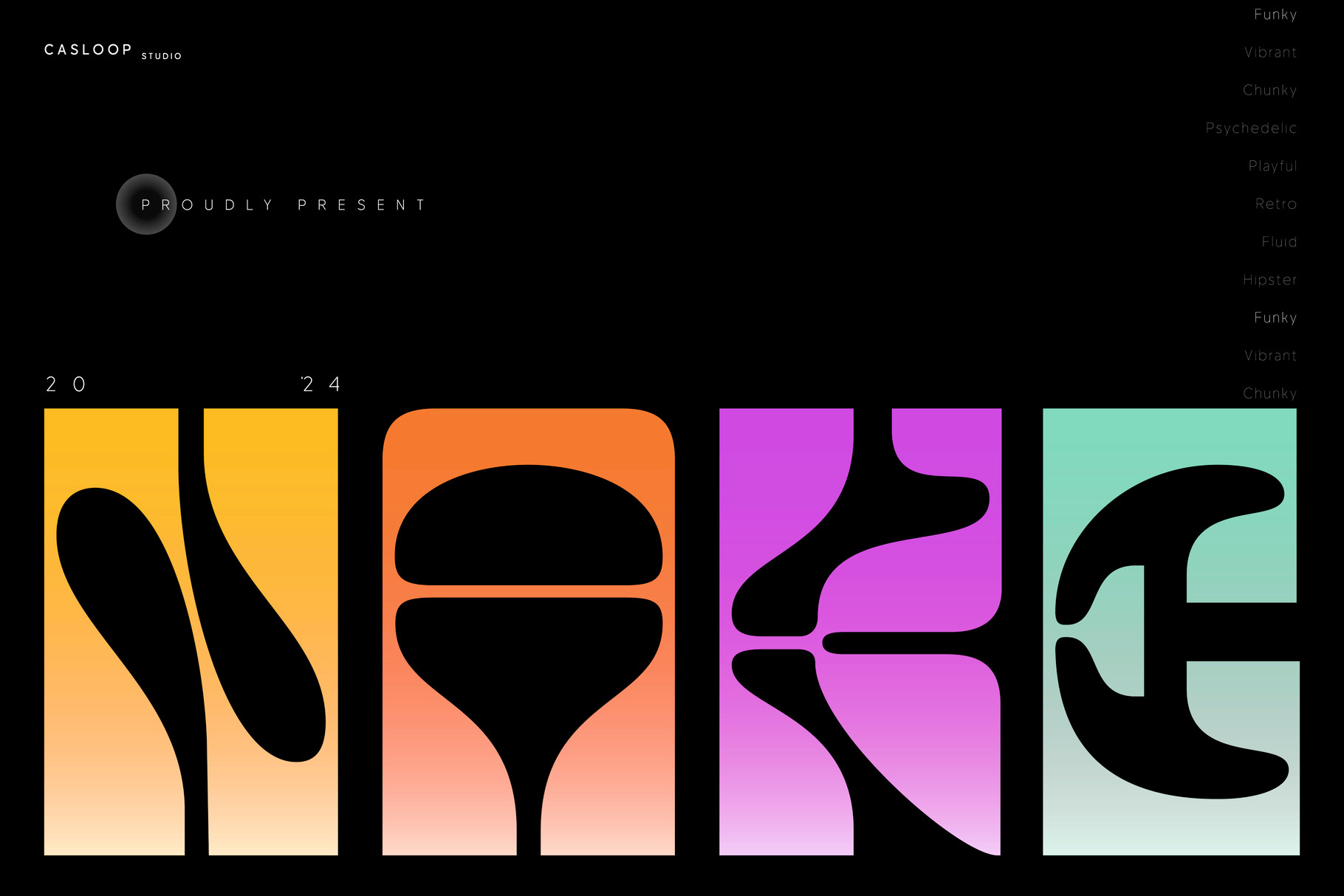
Nake - Funky Quirky Fluid Typeface
Introducing Nake, a font that embodies the groove and funk of yesteryears while resonating with the dynamic nimbus and expressive vibe of today's digital media landscape. Its psychedelic Art Nouveau design injects a playful retro charm into any project, be it website design, packaging, or branding for a mystical product.
Characteristic of the font is its hipster appeal, evoking the funky spirit of the gold 70s and 80s while embracing contemporary trends. With a single variant weight, Nake stands out as a unique and impactful choice for those seeking to make a statement in their design endeavors.
Superiority shines through Nake's ability to capture attention and evoke a sense of nostalgia, making it ideal for festivals, art installations, and digital media visuals. Its chunky yet quirky style adds an element of fun to any project, ensuring it remains memorable and viral-worthy.
Features include its versatility across various platforms and mediums, from logos to social media graphics. Nake's mystical aura and expressive nature make it the go-to font for brands looking to stand out in a crowded marketplace.